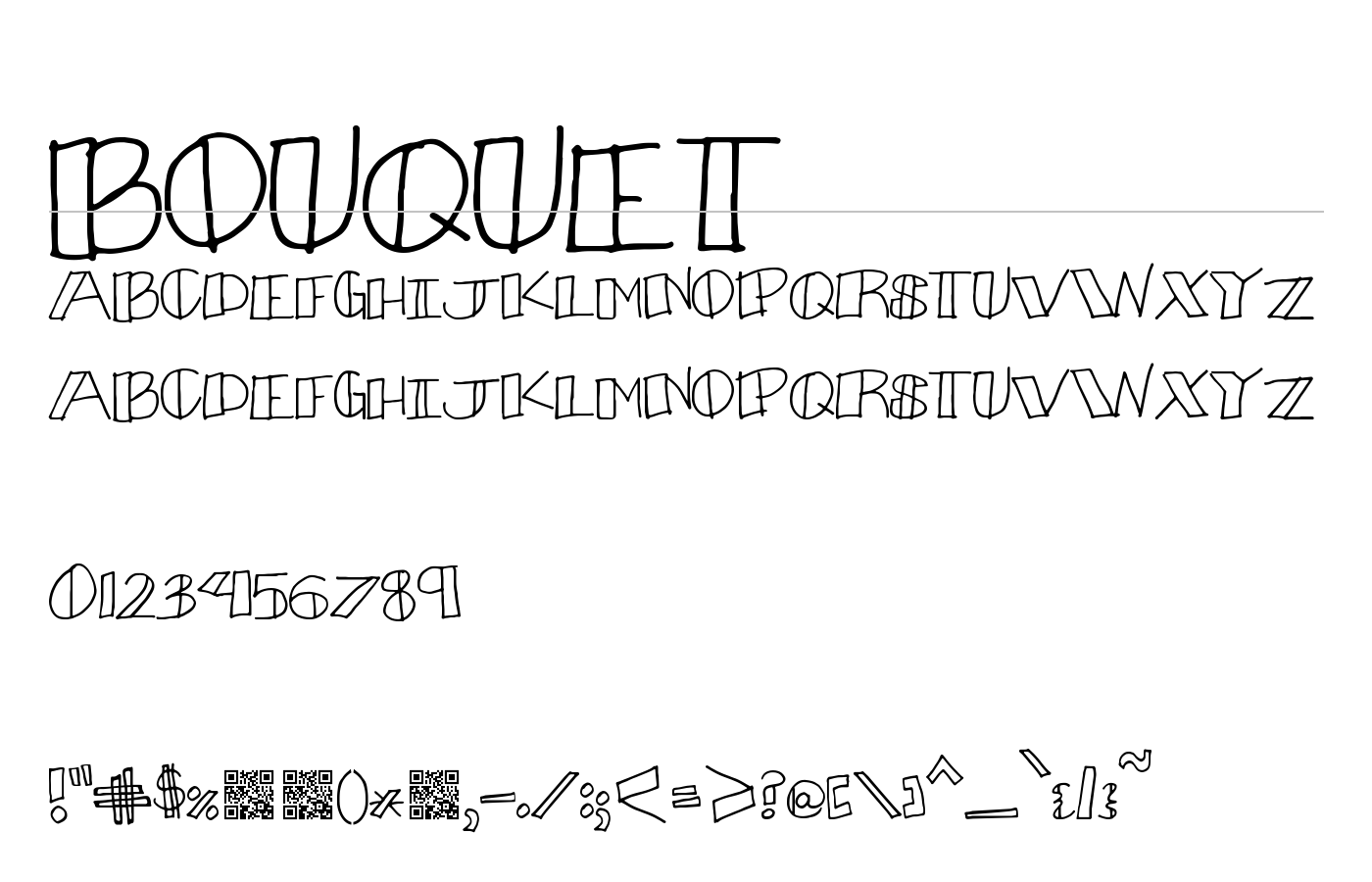
Bouquet Font is a playful and quirky sans serif typeface with tall, narrow letterforms and uneven, hand-drawn strokes that create a whimsical, artistic feel. Its irregular lines and unique character shapes make it ideal for creative projects, adding a casual yet expressive touch to logos, posters, and informal headlines. This font works especially well when you want to convey a fun, lighthearted mood with a distinctive handmade charm.
Bouquet Font
About Bouquet Font
| Font family | Bouquet Font |
| Designer | Max Infeld |